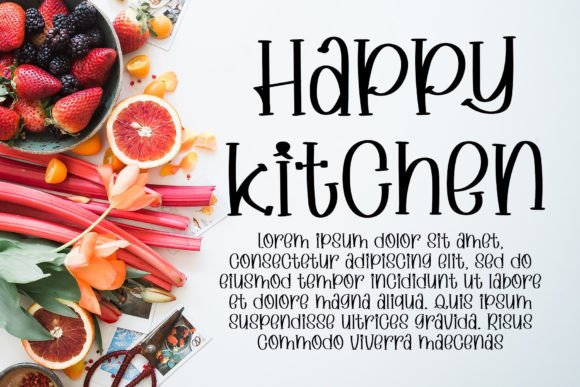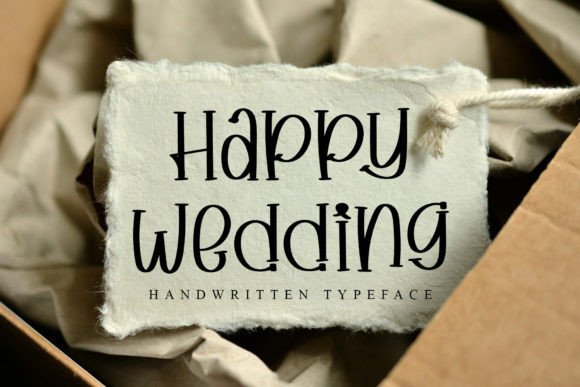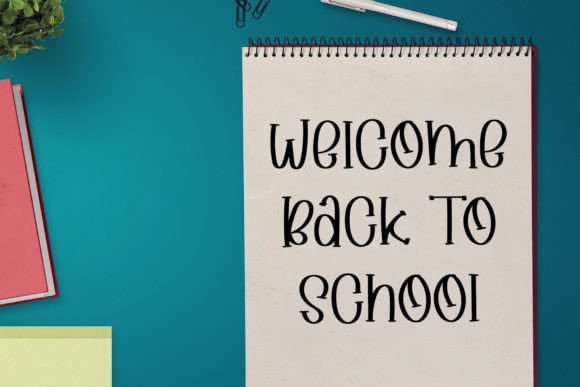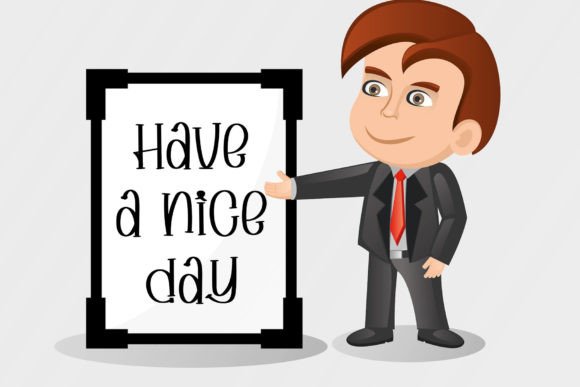
Nativity Font
The Nativity Font Download is a beautiful handwritten script that adds elegance, charm, and personality to your creative projects. Designed with a varied baseline and carefully crafted strokes, this font brings a natural handwritten look to both personal and professional designs. Whether you’re creating invitations, posters, or logos, Nativity will elevate your work with style and grace.
A Handwritten Script with Elegant Character
The Nativity script font combines calligraphic influence with a modern handwritten flow. As a result, it feels timeless, versatile, and visually stunning. Furthermore, it adapts effortlessly to both delicate stationery and bold branding projects, which makes it a reliable option for designers.
Handwritten fonts always enrich personal stationery. The Nativity Font is ideal for wedding invitations, thank you cards, holiday greetings, and birthday notes. Because of its elegant handwritten rhythm, every card feels heartfelt and professional. In addition, it ensures that your stationery designs leave a lasting impression.
Branding and Logo Design with Nativity Font
Typography is key to building a brand’s identity. The Nativity handwritten font is perfect for boutique logos, product packaging, and promotional content. Its carefully balanced handwritten style gives businesses a stylish yet approachable image. Therefore, it is especially effective for fashion, lifestyle, and creative industries.
Posters, Titles, and Editorial Work
The Nativity Font Download also works beautifully in posters, book covers, banners, and magazines. It maintains readability at all sizes while adding handwritten beauty. Consequently, it is a dependable choice for designers who want to combine clarity with elegance.
In today’s online world, fonts must be adaptable and visually engaging. The Nativity typeface integrates seamlessly into Instagram posts, Pinterest graphics, YouTube thumbnails, and blogs. Because of its polished handwritten strokes, it ensures digital designs look stylish, modern, and professional.
Why Designers Choose Nativity Typeface
Designers value fonts that combine usability with character. The Nativity handwritten script keeps its graceful personality while remaining clear and easy to read. This balance makes it suitable for both hobbyists and professionals. Moreover, its timeless handwritten design ensures it remains relevant for years to come.
Add Elegance and Charm to Your Projects Today
If you’re looking for a handwritten script that feels elegant, stylish, and versatile, the Nativity Font Download is the perfect choice. From invitations and cards to posters, branding, and social media, it enhances every project with timeless handwritten beauty. Finally, download Nativity today and let your designs shine with elegance and creativity.